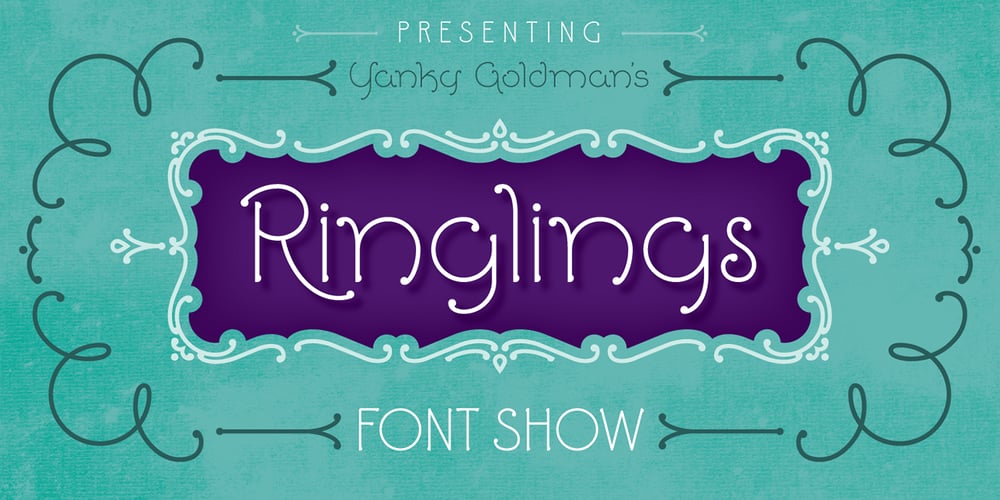
Ringlings Font Family was designed by Yanky Goldman and published by Yanky Goldman. Ringlings contains 3 styles and family package options. Ringlings stems from Yanky Goldman’s quest for a fresh and innovative display font that subtly attracts. Thus, this lively, dancing-in-the-sun typeface was created. Ringlings is ideal for logo design, package design, headlines and more. This single-stroke, semi-serif font family includes over 1,100 glyphs including uppercase, lowercase, stylistic sets, titling, petite caps, deco caps, ligatures, borders & ornaments and more. It supports most Latin and European languages. Ringlings is airy, light and quite versatile.